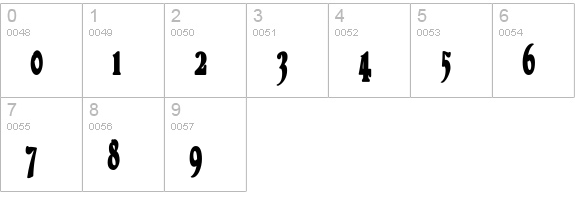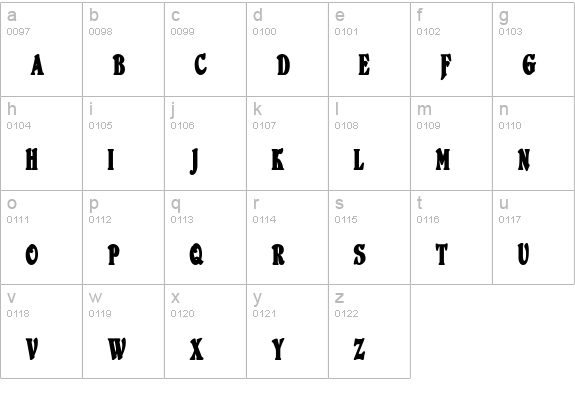
DuvallSmallCapsCondensed Bold Font Details
DuvallSmallCapsCondensed Bold is a strong, high-contrast variant in the DuvallSmallCapsCondensed typeface family \xE2\x80\x94 well suited to headlines, attention-grabbing titles, and strong calls-to-action.
DuvallSmallCapsCondensed Bold is a sleek and modern font that exudes sophistication and elegance. Its condensed design adds a touch of sleekness, making it perfect for headlines, titles, and other attention-grabbing text. The bold weight commands attention and ensures that your message is delivered with authority. This versatile font is perfect for a wide range of design projects, from branding materials to editorial layouts. Its small caps feature adds a touch of uniqueness and style, making your text stand out from the crowd. And the best part? DuvallSmallCapsCondensed Bold is available for free download at FontsMarket.com. So why wait? Elevate your design projects with this stunning font today!